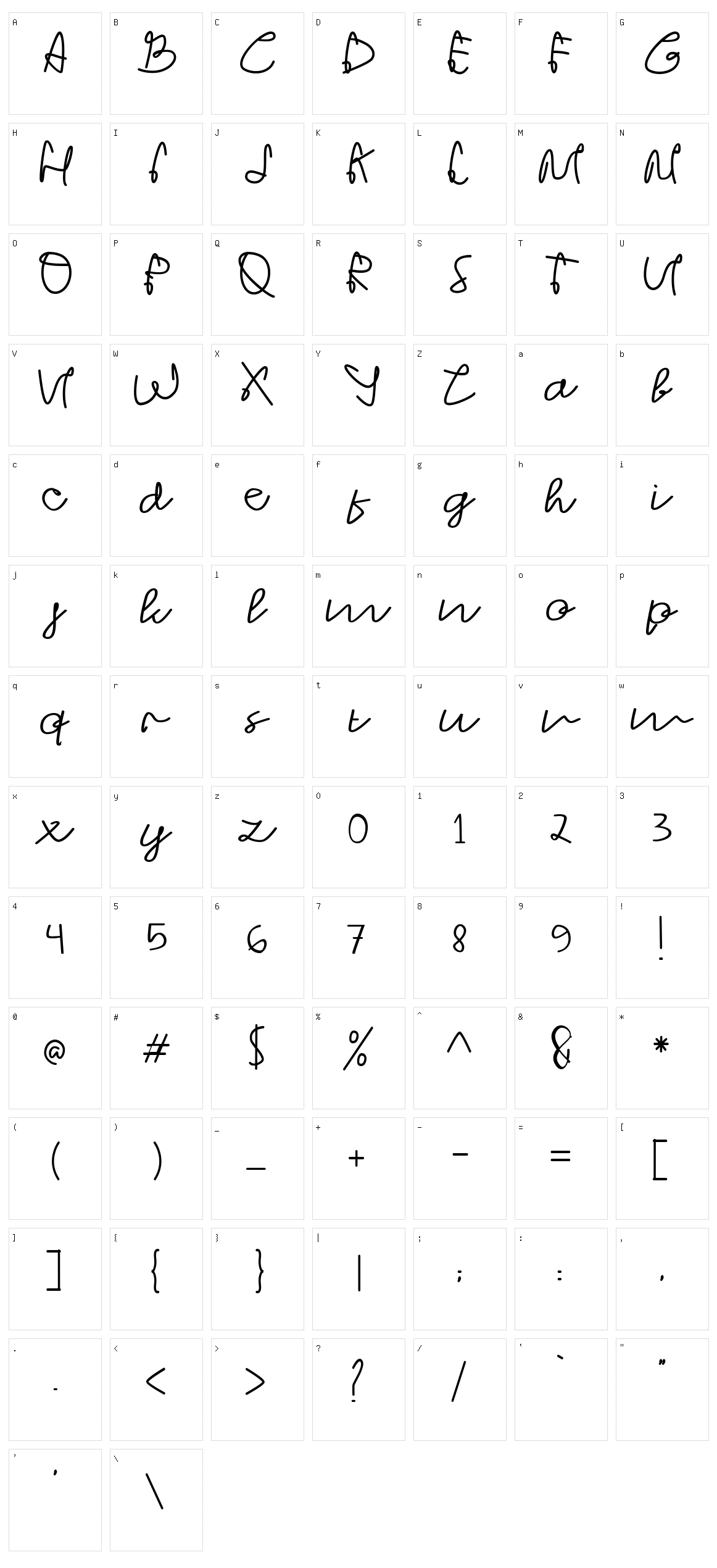
The free font Strong Heart is carefully designed by Rafantype Studio, showcasing a thoughtful balance of creativity and usability and falls under the Script font style. When you download the ZIP file, it contains only 45.33 KB of font files, making it lightweight and quick to download. Please review the license details below to understand permitted usage and distribution rights. If license information is not available, we recommend using this font for personal projects only or contacting the author directly for commercial usage permissions.